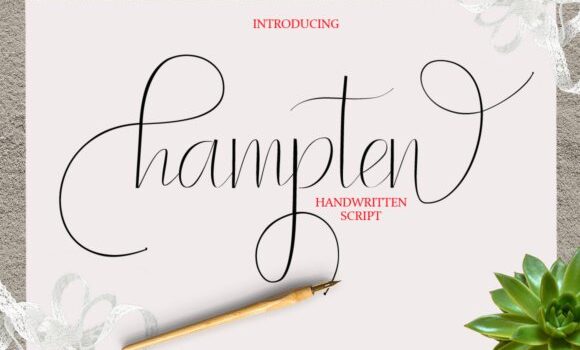
hampten
Hampten Font – Free Download Introduction to Hampten Font Hampten is a beautiful swashy calligraphy font, ideal for use in a wide range of projects. 📸 Preview Gallery 6 images 📌 Product Name Hampten Font 👤 Author joelpopon 📂 Category